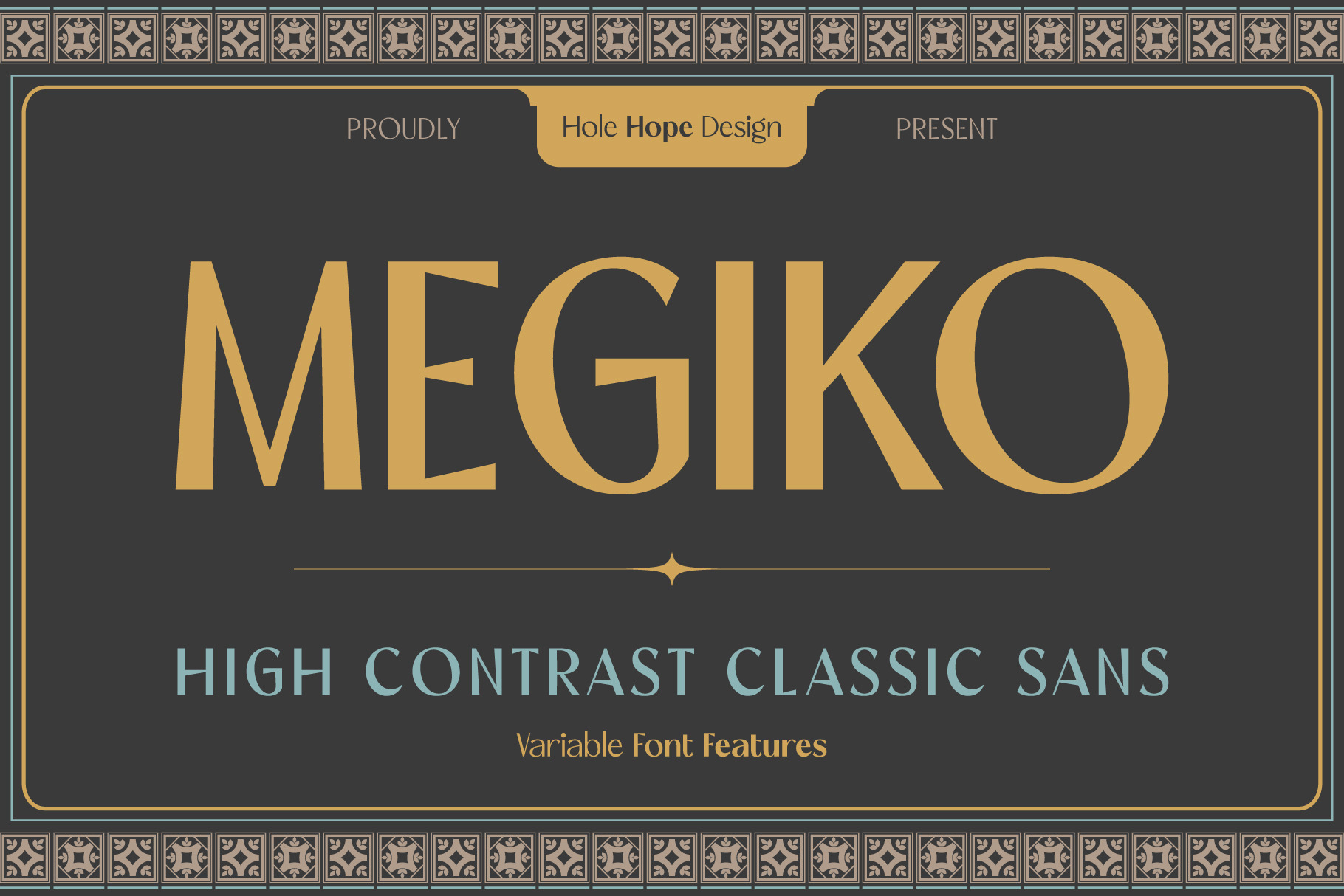
Megiko | High Contrast Classic Font
Step into the charm of Megiko, a High Contrast Classic Font that blends timeless elegance with folk art inspiration. Designed for Easter Day celebrations, Megiko embodies the grace of traditional calligraphy with a touch of vintage artistry. With its delicate curves and striking contrasts, this font is perfect for luxurious invitations and heartfelt greeting cards. Megiko delivers sophistication with a warm, festive spirit. Let Megiko bring beauty and tradition to your creative projects this season!
Megiko | High Contrast Classic Font features:
- Character Set (Uppercase & Lowercase)
- Standard & Discretional Ligatures
- Several Alternates Stylistics Set
- Variable Font (Bold, Extra Light, Light, Medium, Regular, Semi Bold)